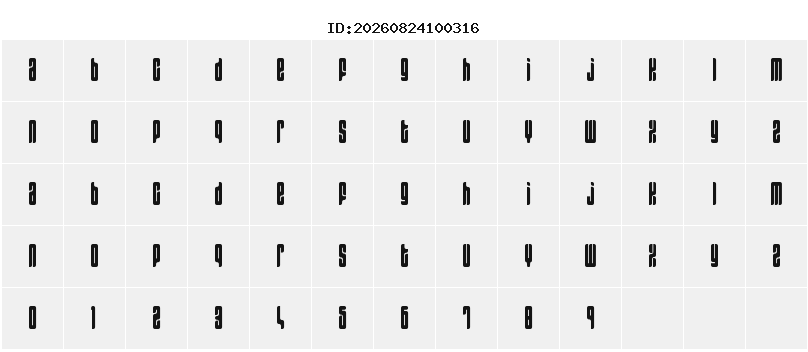
• Font Name: Samatya
• Designer: MEHMET ABACI
About Samatya.ttf
Samatya.ttf is a modern, elegant sans-serif font designed for ultimate readability and visual harmony. Perfect for branding, headlines, web design, and print materials.